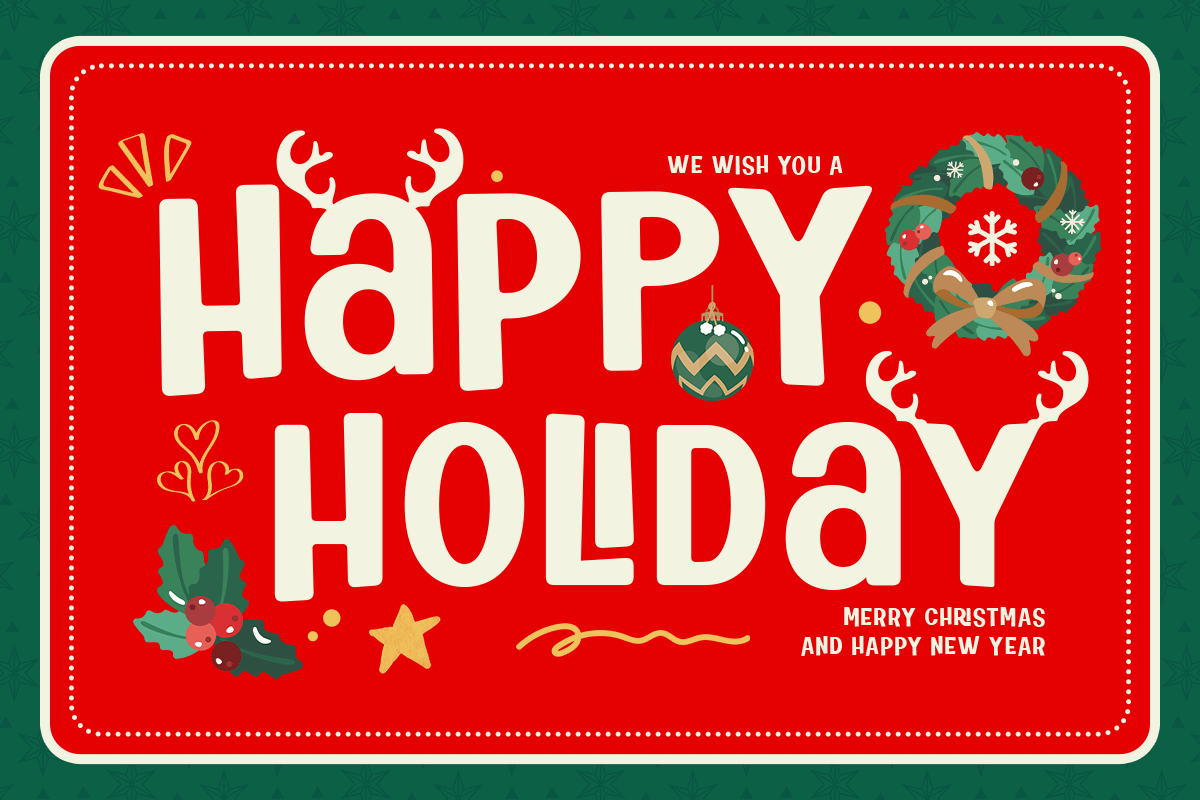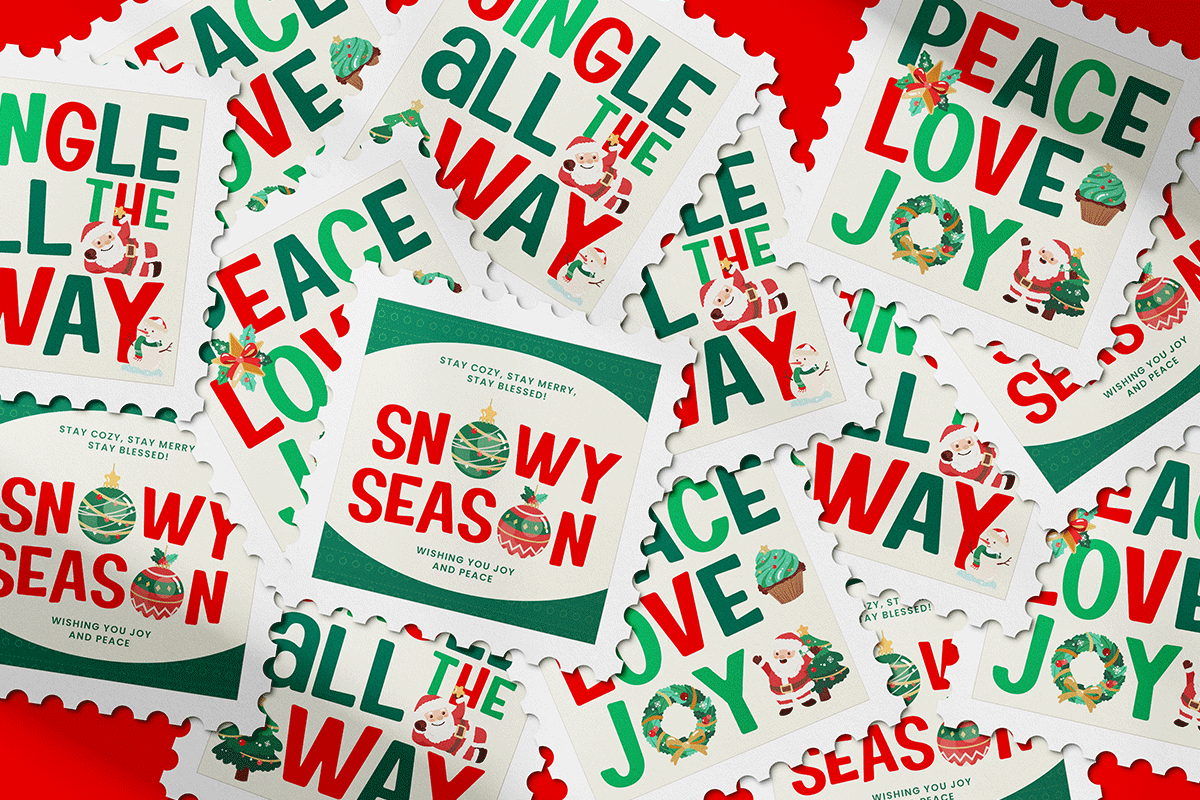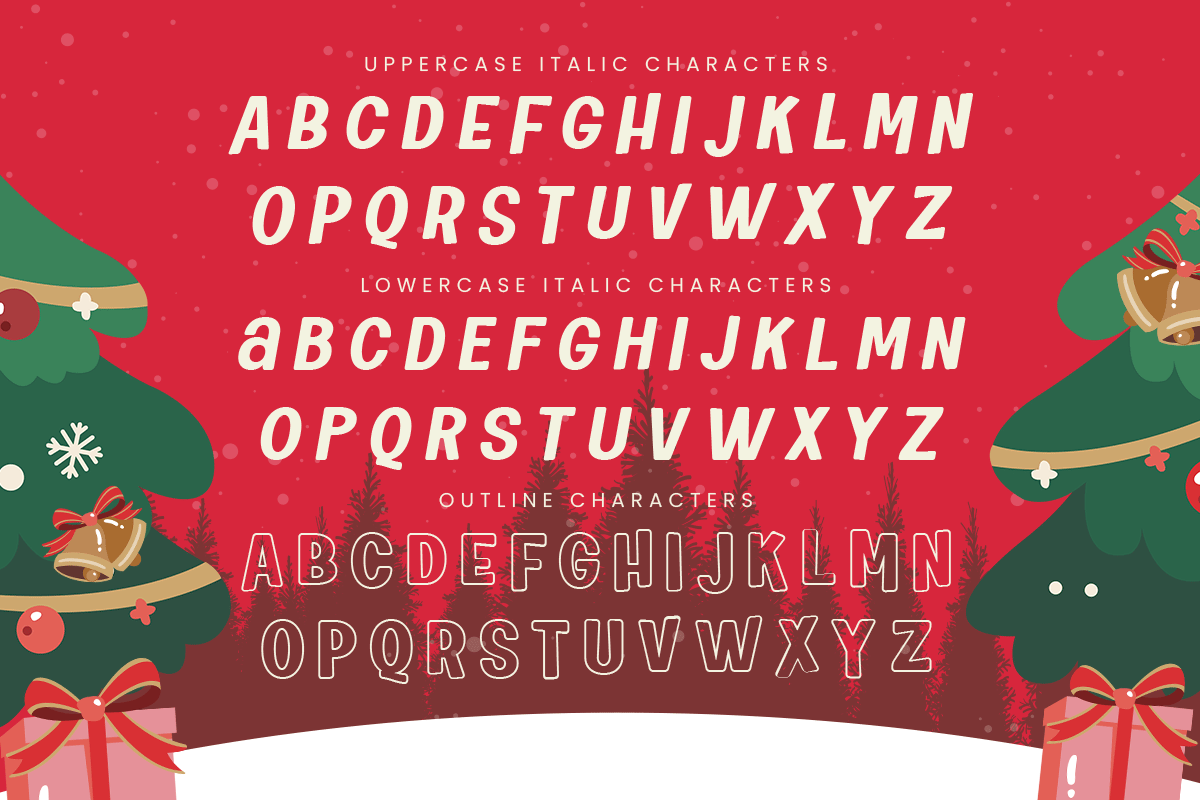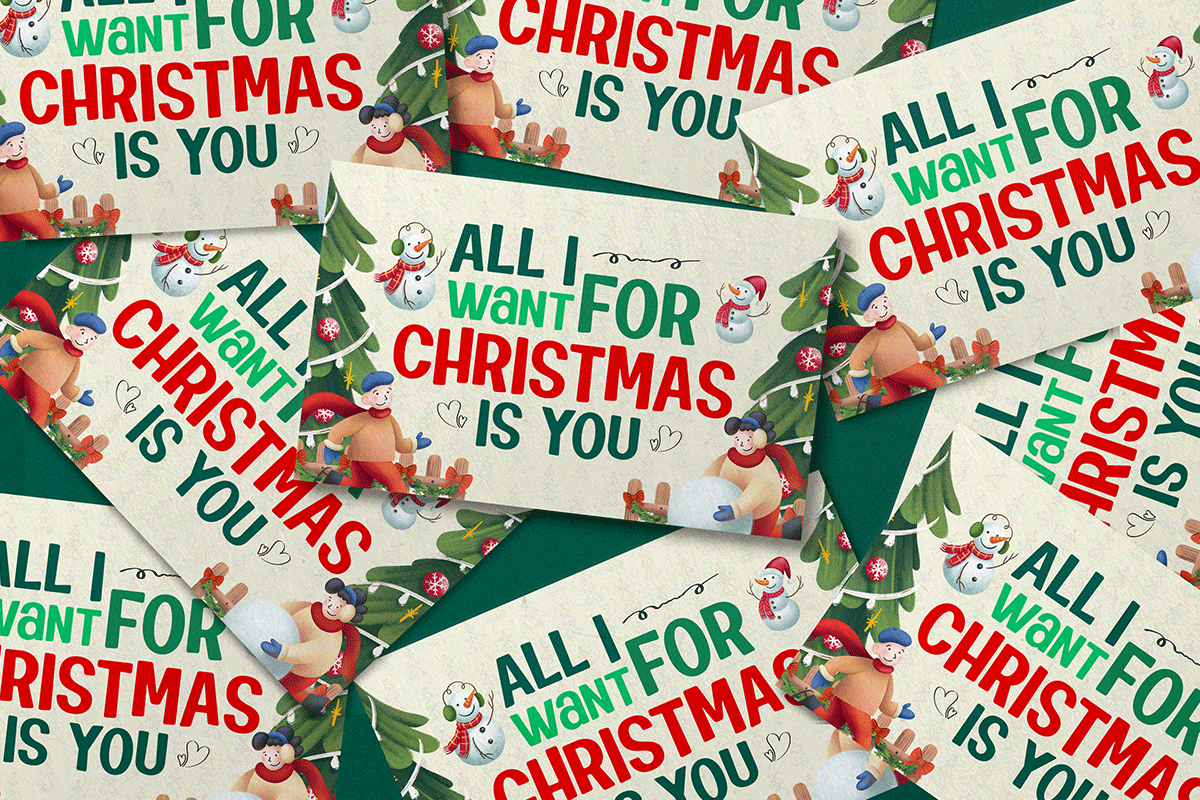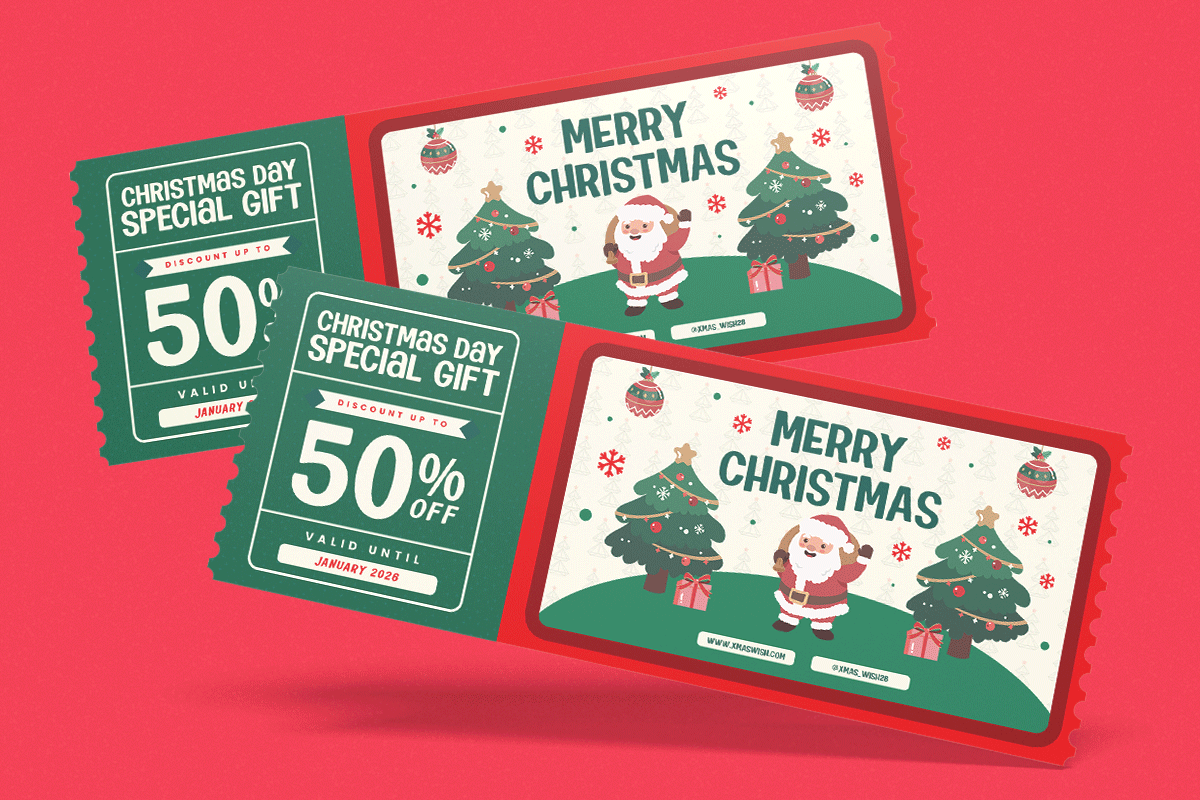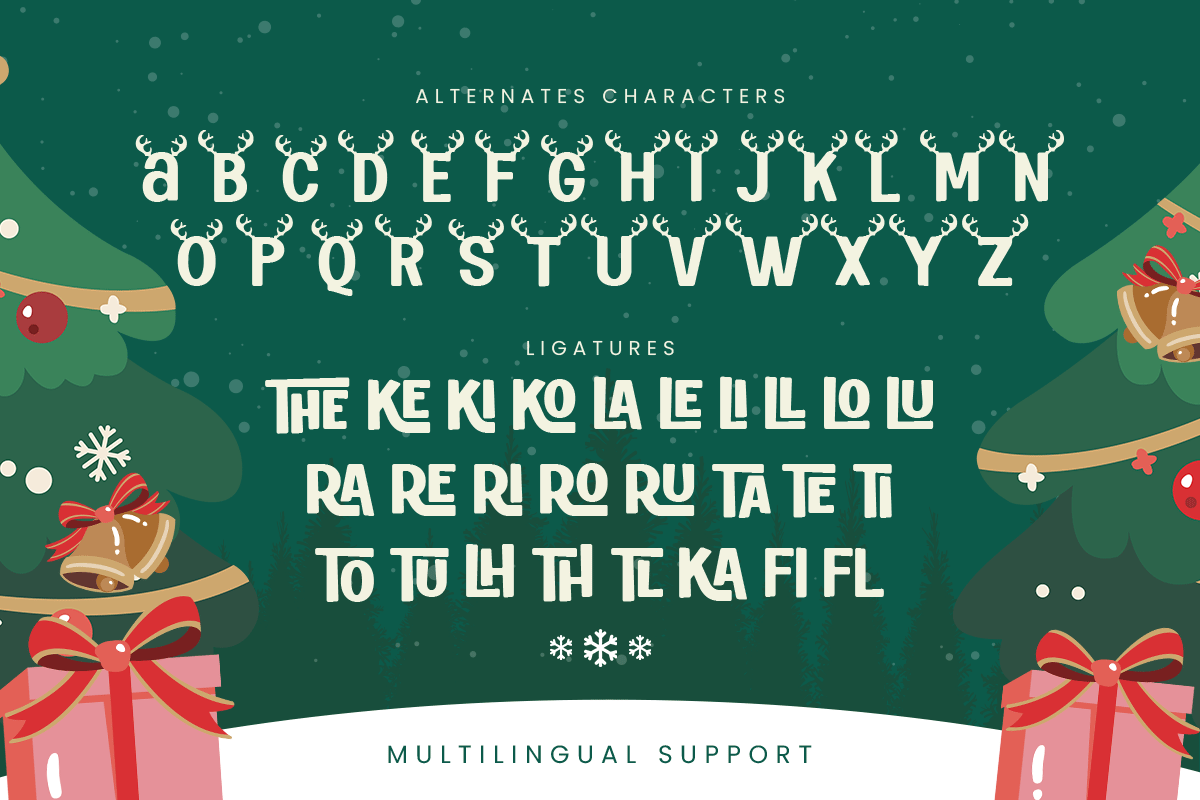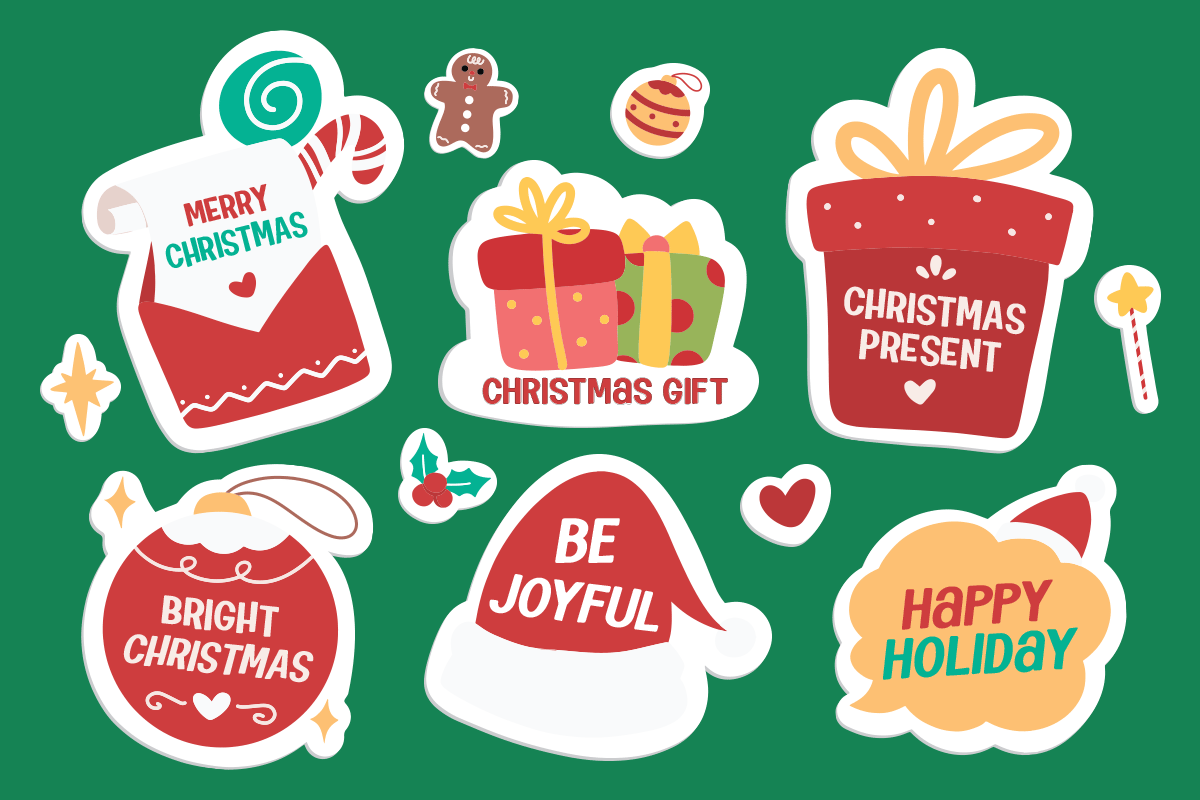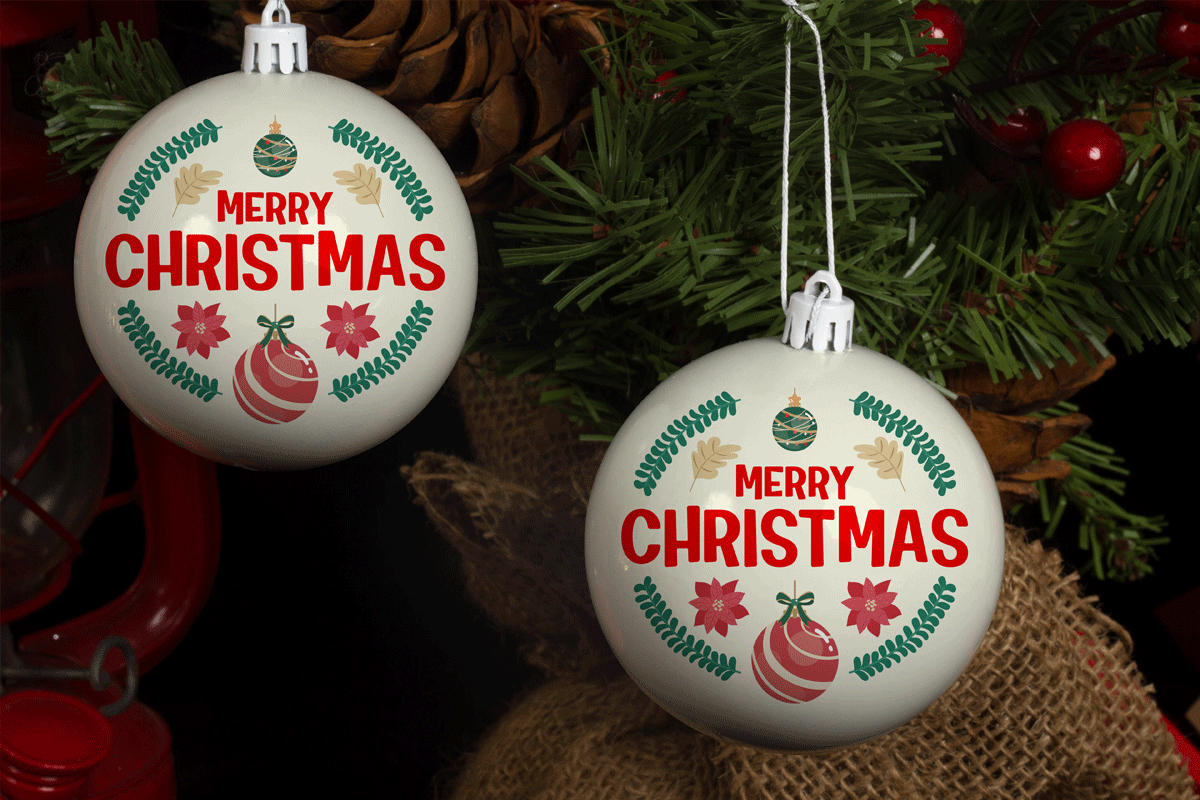
Christmas - Sparkla Display Font
Sparkla is a fun and festive Christmas display font designed to bring holiday cheer to your creative projects. With bold rounded shapes and charming decorative details, Sparkla is perfect for seasonal branding, greeting cards, posters, packaging, children’s books, and Christmas-themed merchandise.
This font delivers a joyful, friendly vibe that instantly highlights the spirit of the holiday season. Whether used for large headlines or decorative accents, Sparkla adds warmth and celebration to every layout.
Features:
• Uppercase & Lowercase
• Cute decorative Christmas style
• Numbers, punctuation & symbols
• Perfect kerning for display usage